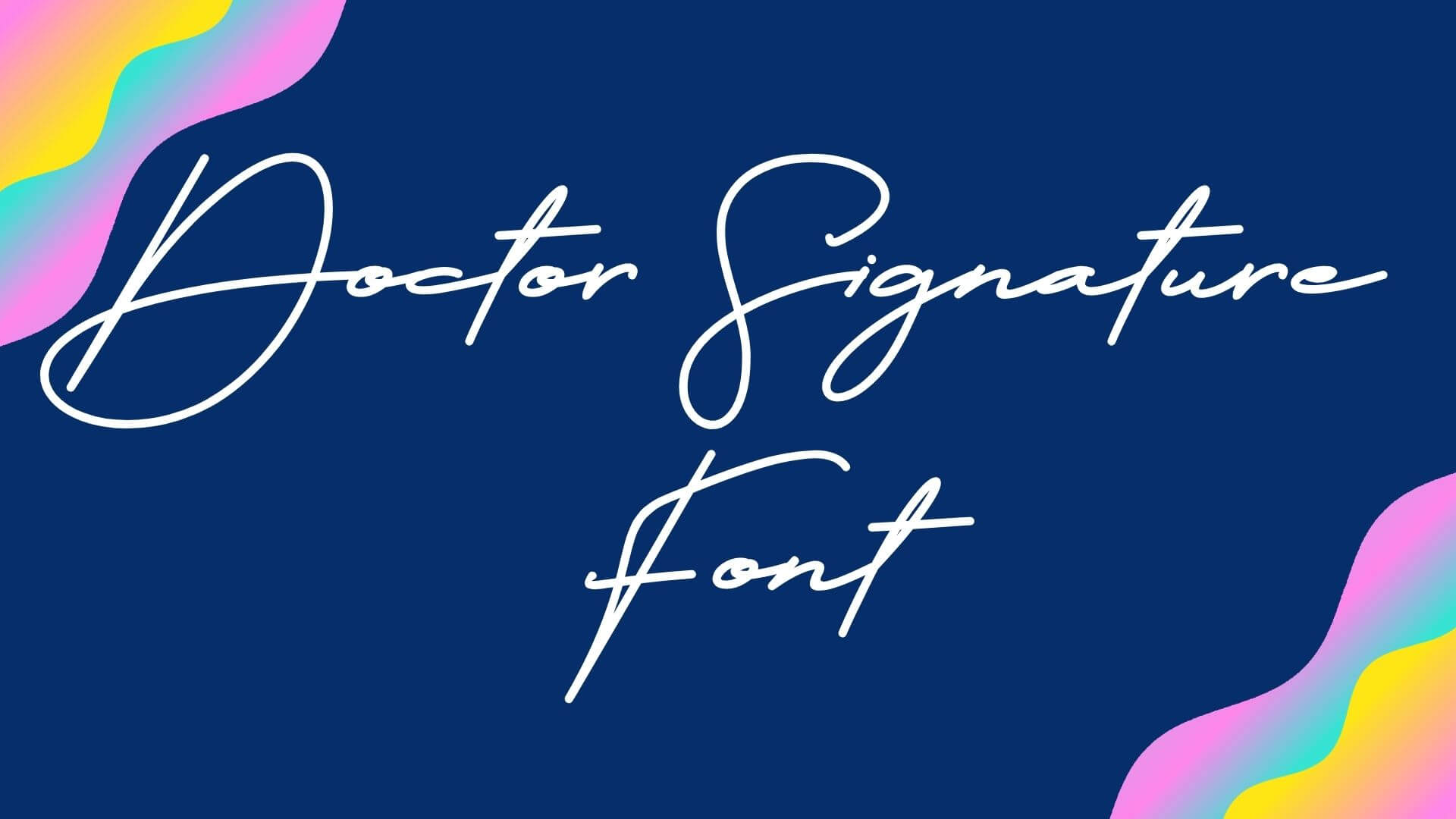
Doctor Signature Font Family is the handwritten script typeface that comes with a diverse set of alternatives and this font is designed by Putra Cetol Font Studio. In this handwritten script typeface, you will find the classy and styling looking that provides the best results when used with asees font and its different styles.
There are numerous characters available in this font and some of the unique characters as well that when you use with thunder bold script font you will be able to create beautiful font designs and Logos.
Doctor Signature Font
TypeHandwritten